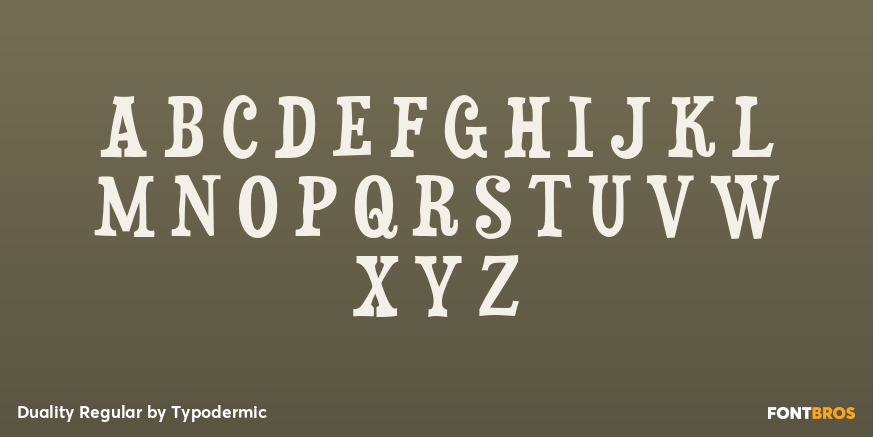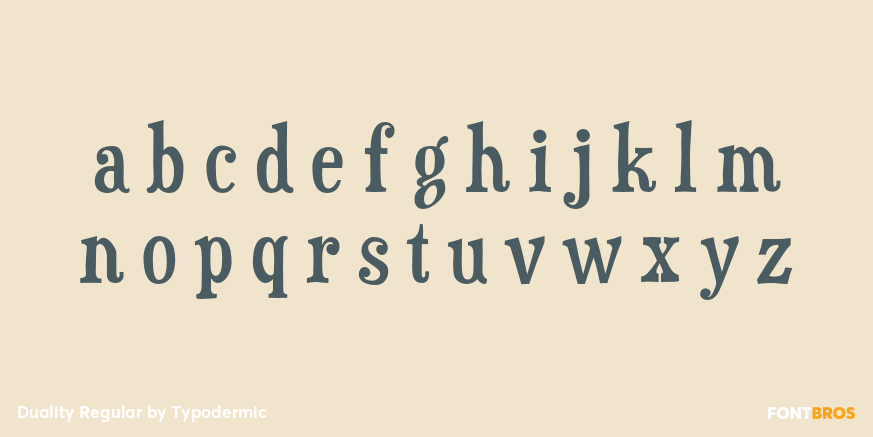
Technology brands increasingly want products to feel tactile, repairable, and personally owned rather than frictionless and disposable. Yet the typography around those products often falls back on the same polished geometric language used for sealed black-glass devices. Duality offers a different kind of technological character. It was drawn by hand on a Palm Pilot, leaving the irregularities of early handheld computing embedded in a compact slab serif.
That makes Duality especially useful for focused computing and digital-paper hardware. E-paper notebooks, handwriting tablets, minimalist phones, digital planners, and distraction-reduced communication devices are sold partly on their physical relationship with the user: writing, reading, concentrating, and carrying one purposeful object. Duality can handle product-family names, packaging fronts, folio and stylus accessories, retail displays, launch-film titles, and campaign headings while a quieter companion face takes care of interface text and technical information.
Regular preserves the imperfect digital construction most directly. Sand pushes the same forms toward abrasion and repeated handling, while Steel moves farther into corrosion and damaged hardware. Repairable and modular electronics make those distinctions especially useful. Upgradeable laptops, modular phones, replacement components, repair kits, and long-life hardware need to communicate a different relationship with product age. Duality can handle module names, repair-kit packaging, parts-wall graphics, workshop demonstrations, and upgrade campaigns where wear and intervention are part of ownership rather than signs that the product has failed.
Boutique electronic instruments and hands-on creative hardware provide another natural setting. Desktop synthesizers, grooveboxes, samplers, effects pedals, field recorders, modular instruments, and unusual controllers are technology products whose appeal depends on knobs, switches, cases, and repeated physical use. Duality can give model names, faceplate graphics, cartons, launch photography, and trade-show displays a distinctive hardware character without resorting to cyberpunk geometry or retro hi-fi imitation.
Branded electronics repair and refurbishment programs can use the same language for service-center graphics, parts exchanges, replacement-module packaging, trade-in campaigns, and refurbishment events. Duality works best when technology needs to feel touched, opened, repaired, and used; Regular keeps its imperfect digital construction exposed, while Sand and Steel carry the same forms into rougher physical conditions.